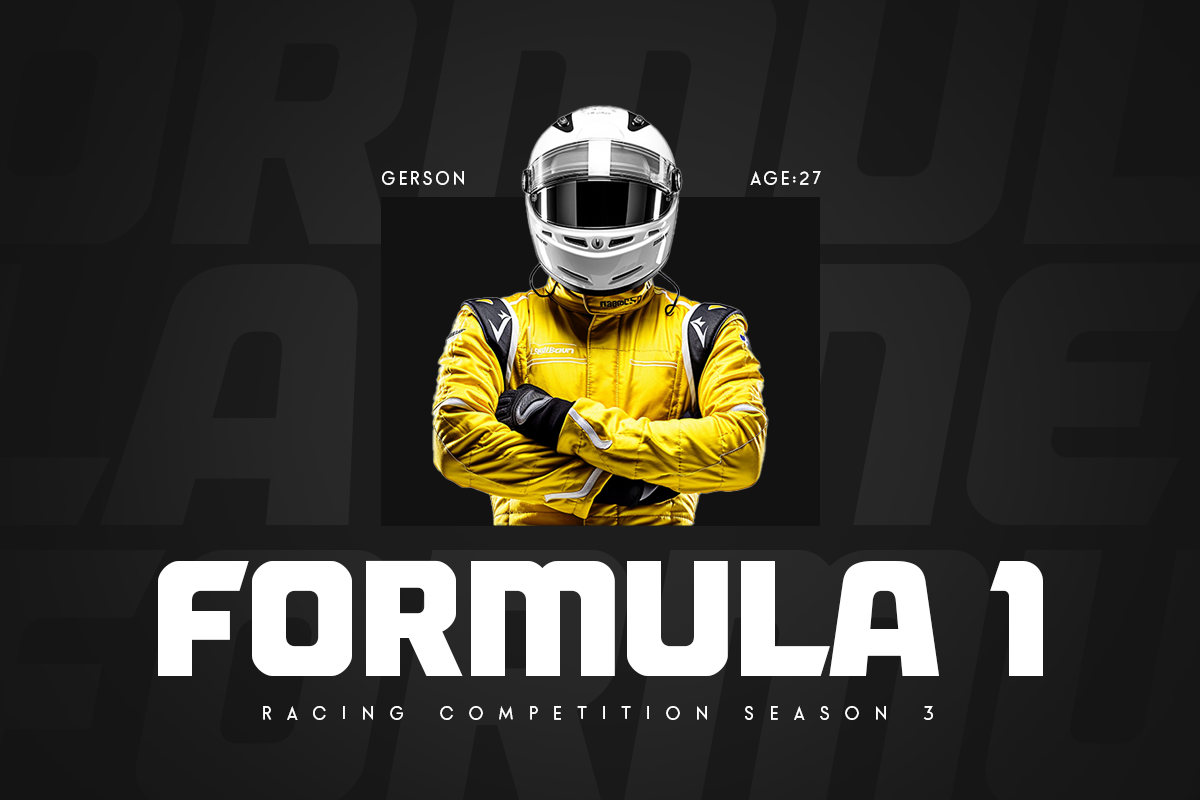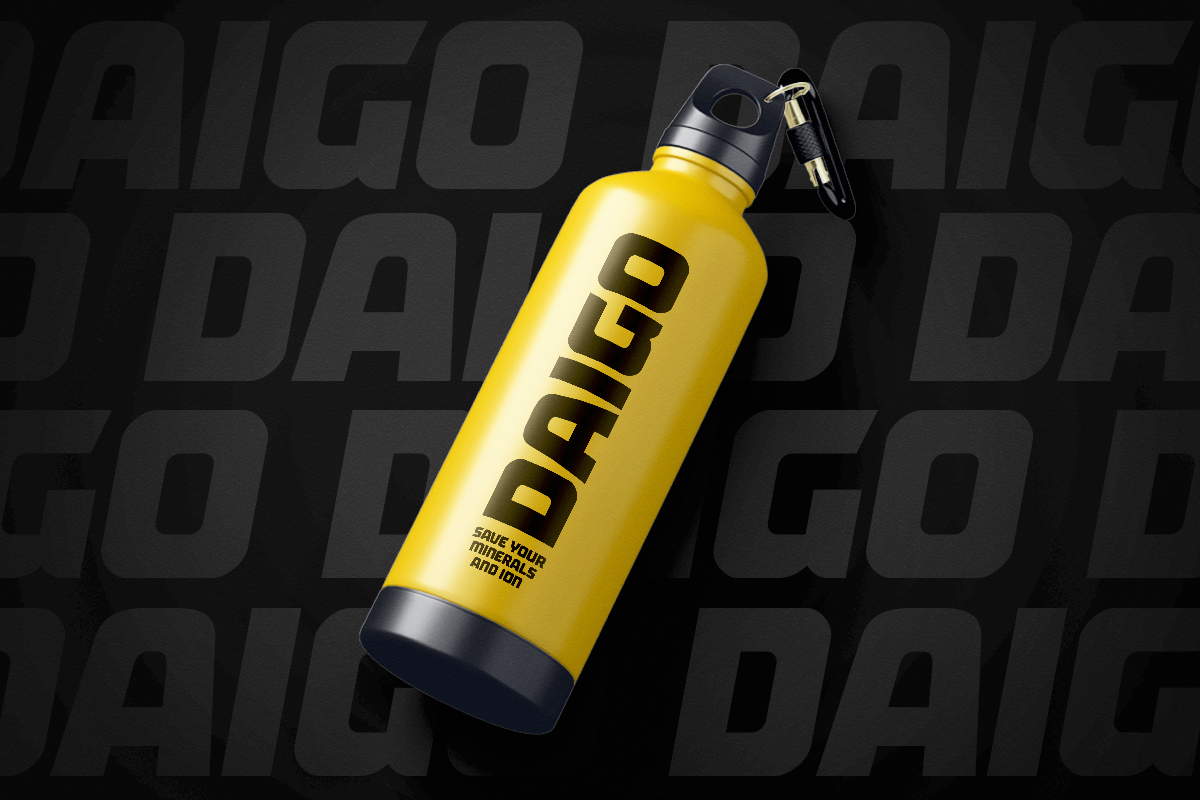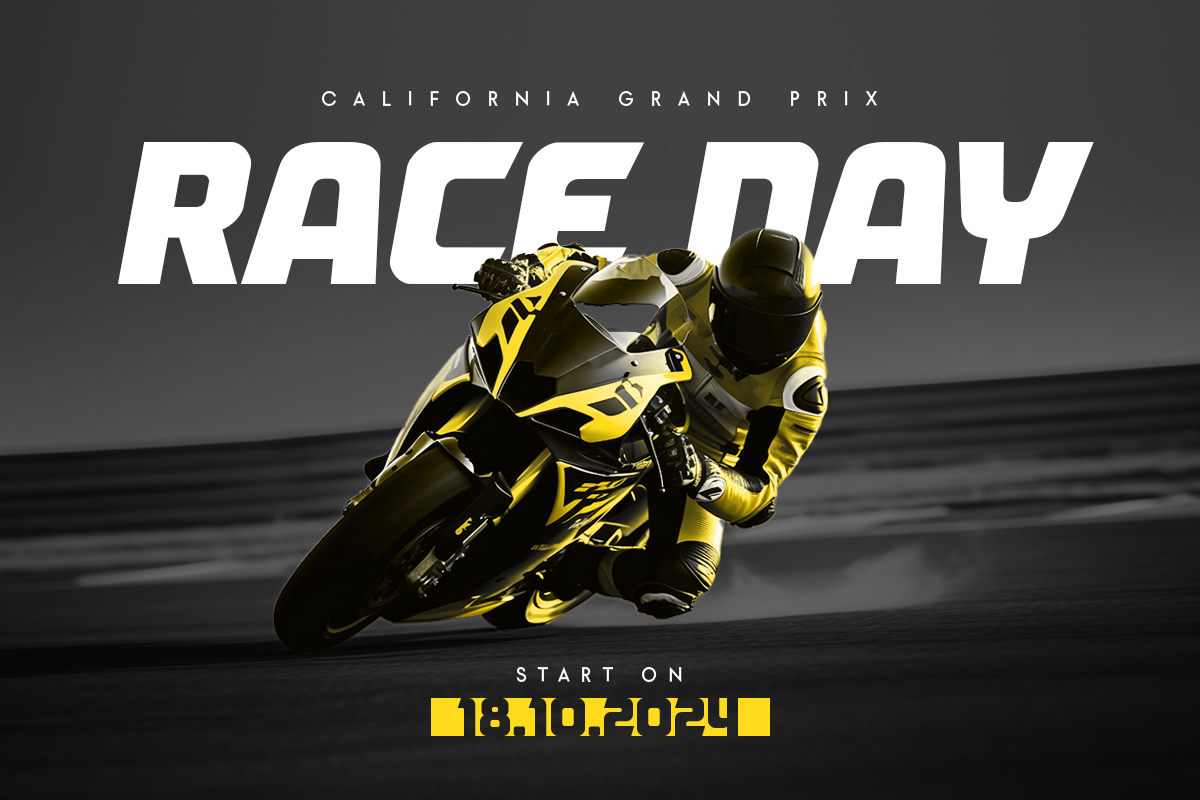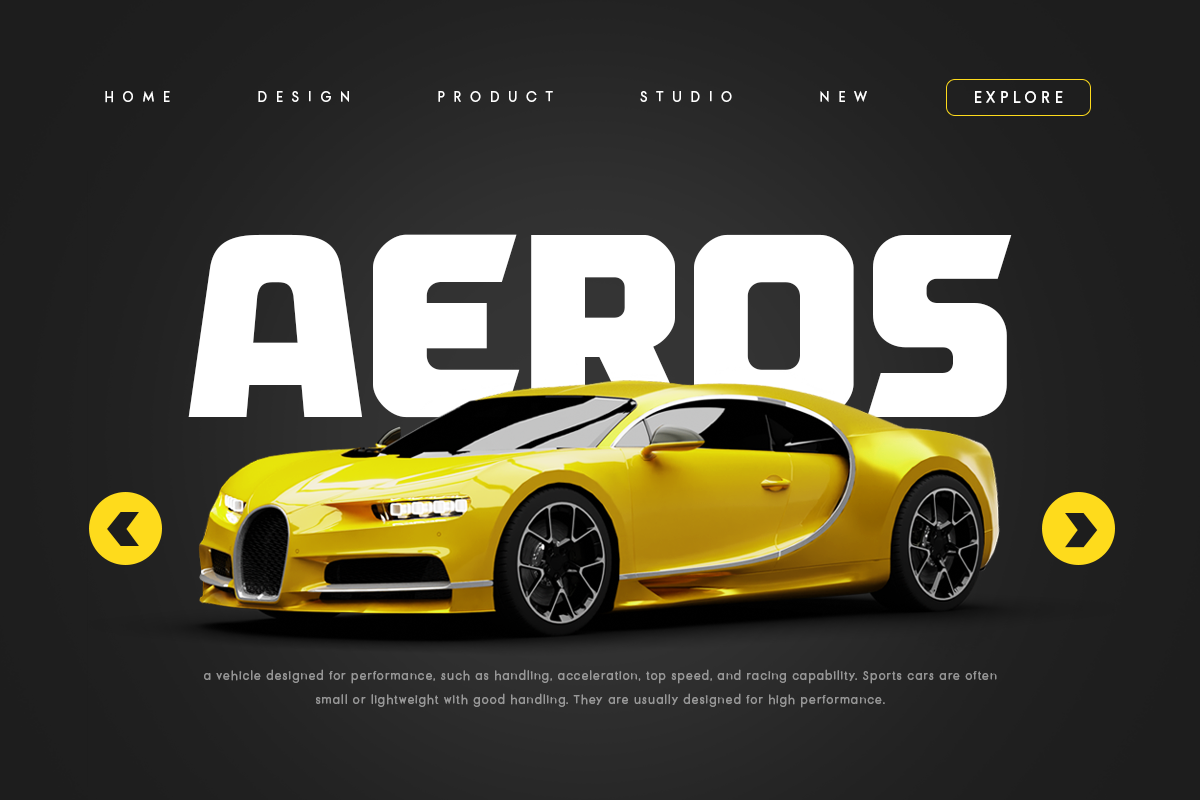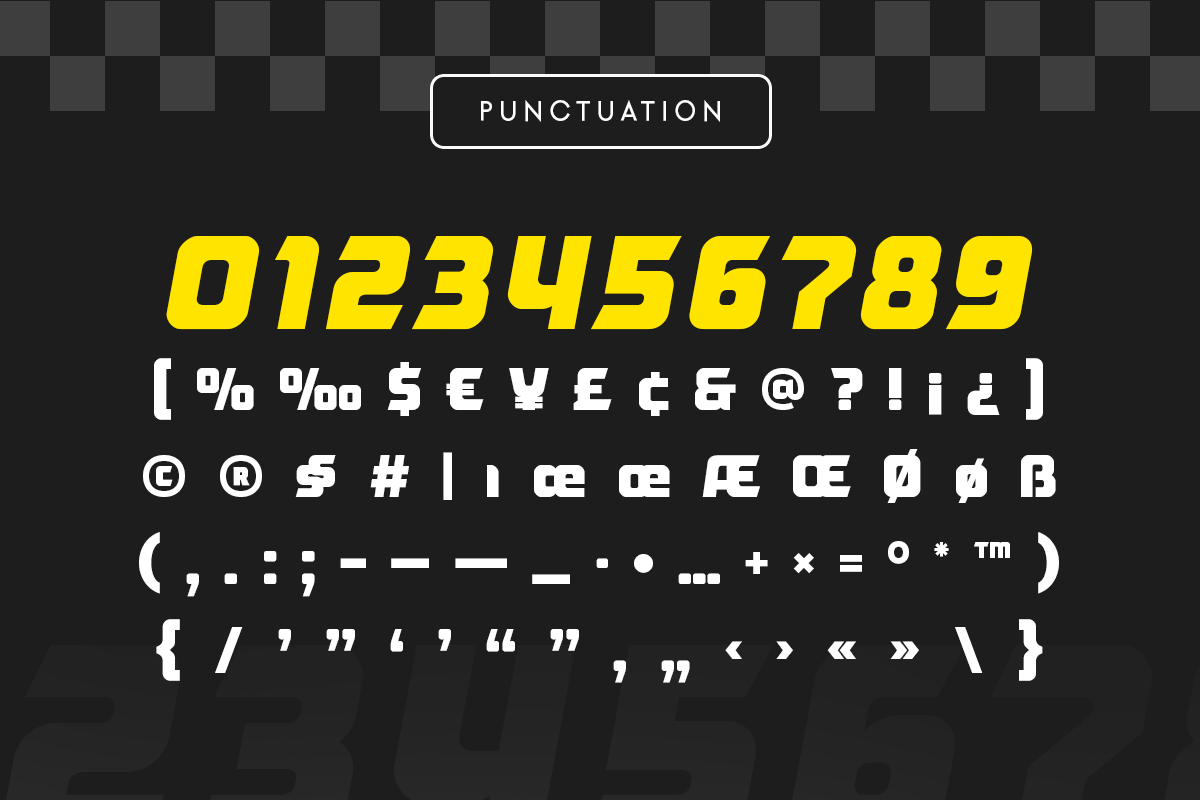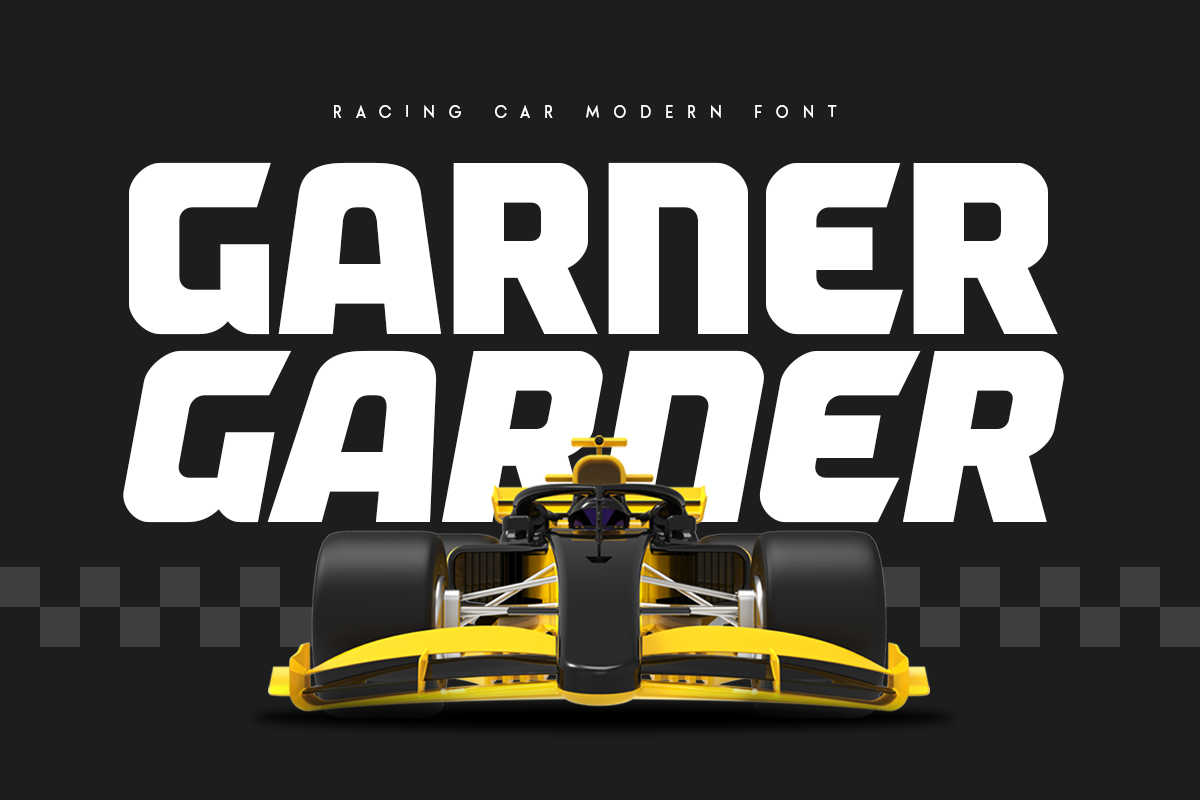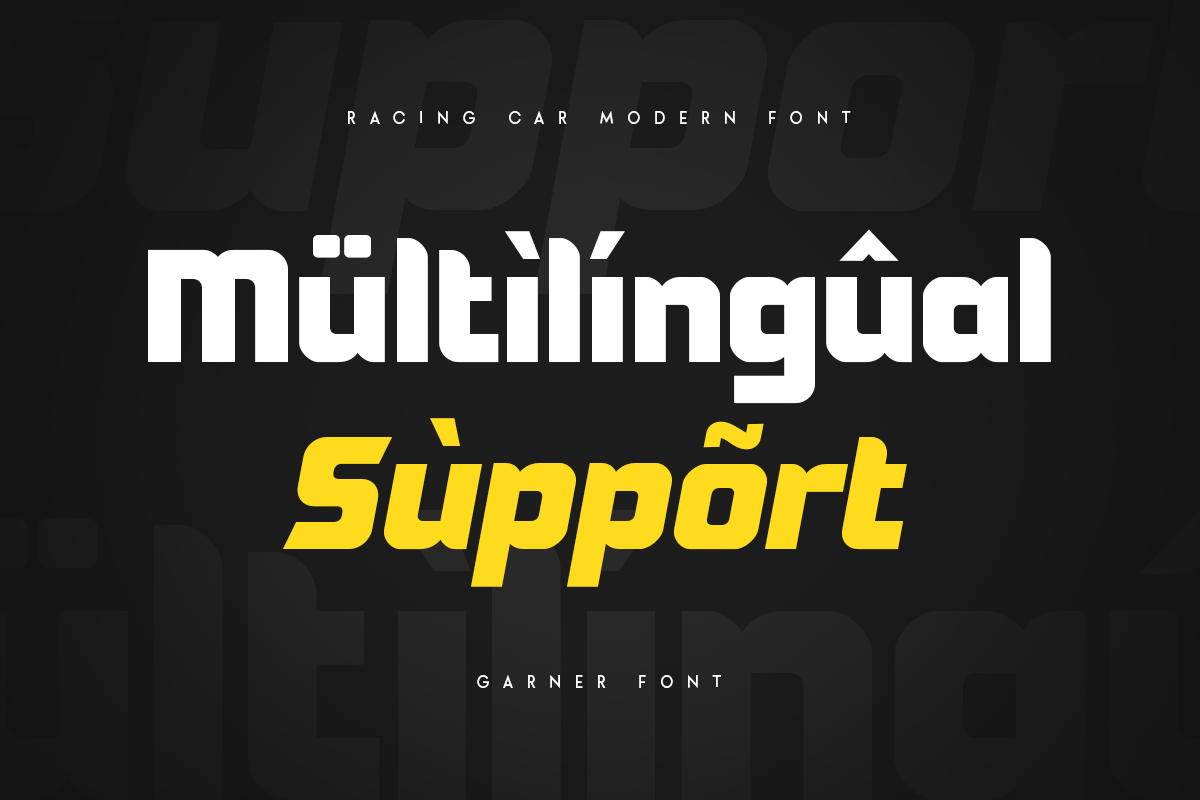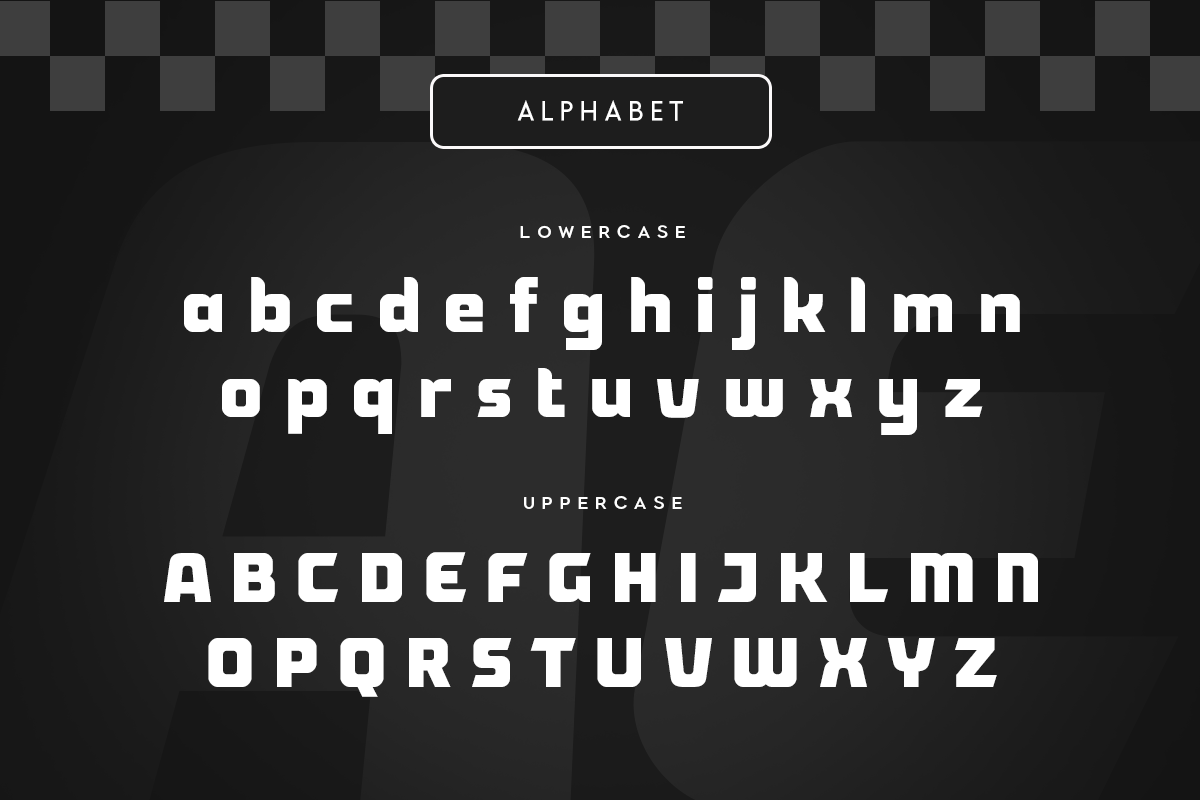
Garner - Racing Car Modern Font
Garner, a Racing Car Modern Font that created special for Branding, Title and more stand out typography for sport and action. It's so perfect to add your style and headline overview for sport, technology, actions, and fighting theme. And specially for this font, we crafted for bold action style and modern feels so enjoy to create any project that will show your main idea out.